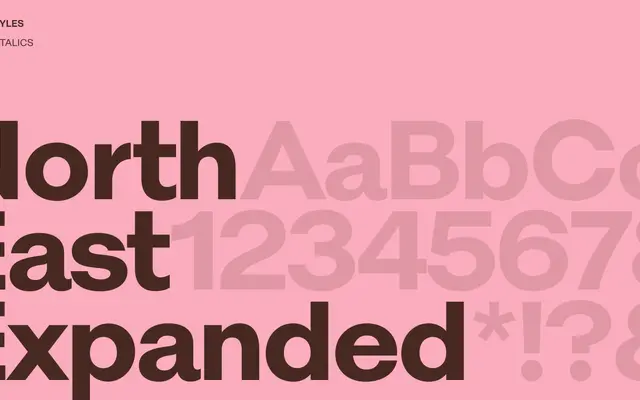
North East Expanded
A wide-set sans-serif from Playtype with an expanded width suited to display and editorial use.
North East Expanded sits in Playtype's catalogue as a stretched grotesque designed for headline and display contexts. The expanded proportions give it a commanding presence on the page, particularly at large sizes. The page content available offers little detail on weights or language support, suggesting a focused, single-style release.
The name and 'Expanded' designation suggest a wide-set sans-serif in the grotesque tradition, consistent with Playtype's broader catalogue of geometric and grotesque display faces.